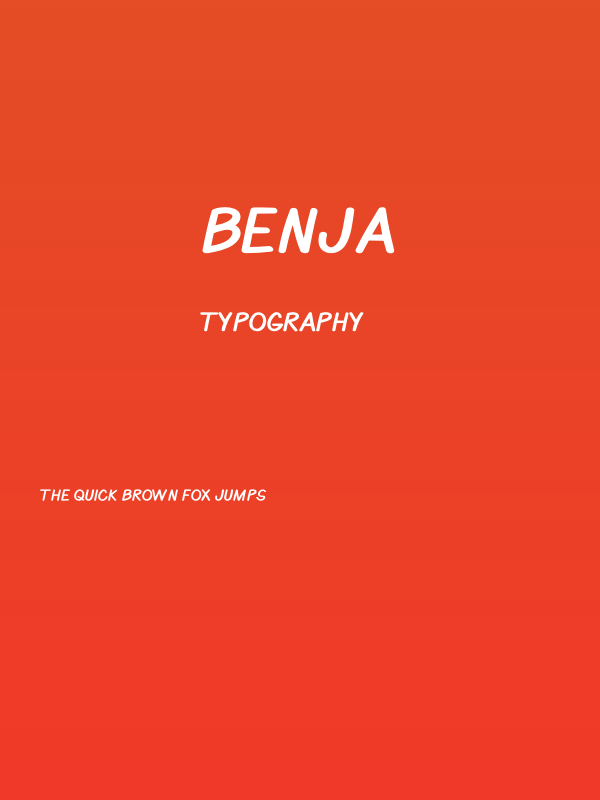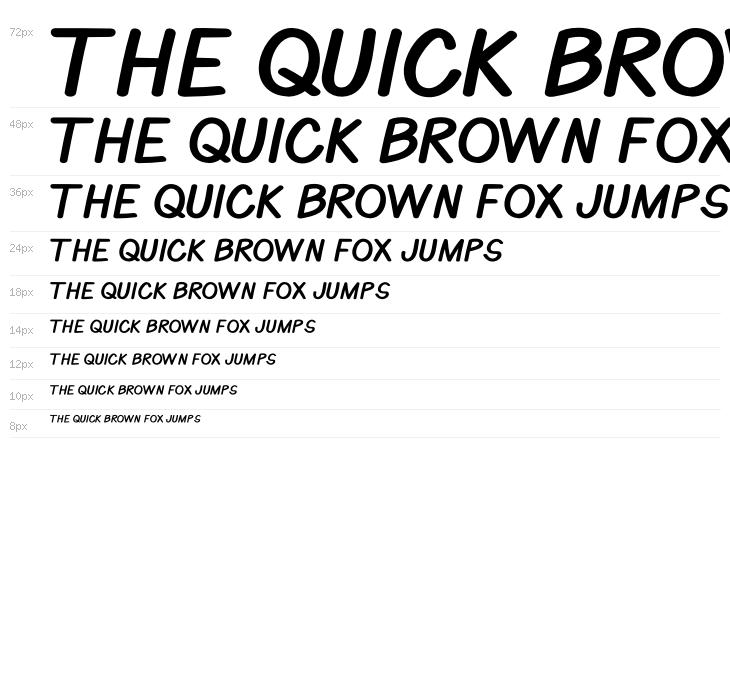
Benja Font
| Caso d'uso | Headlines, Logos, Informal Text |
| Progetti proposti | Ideal for children's books, informal branding, creative posters, and playful designs. |